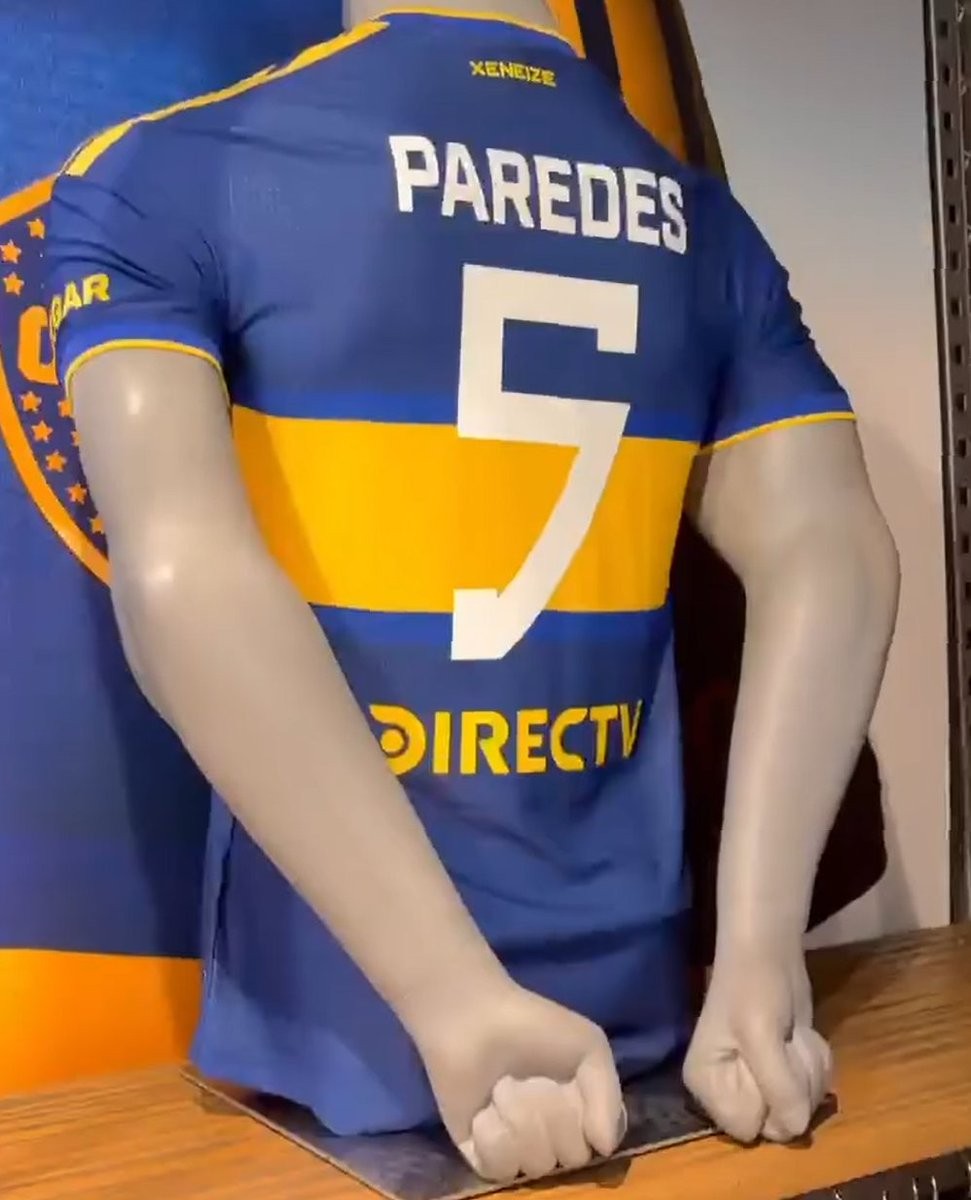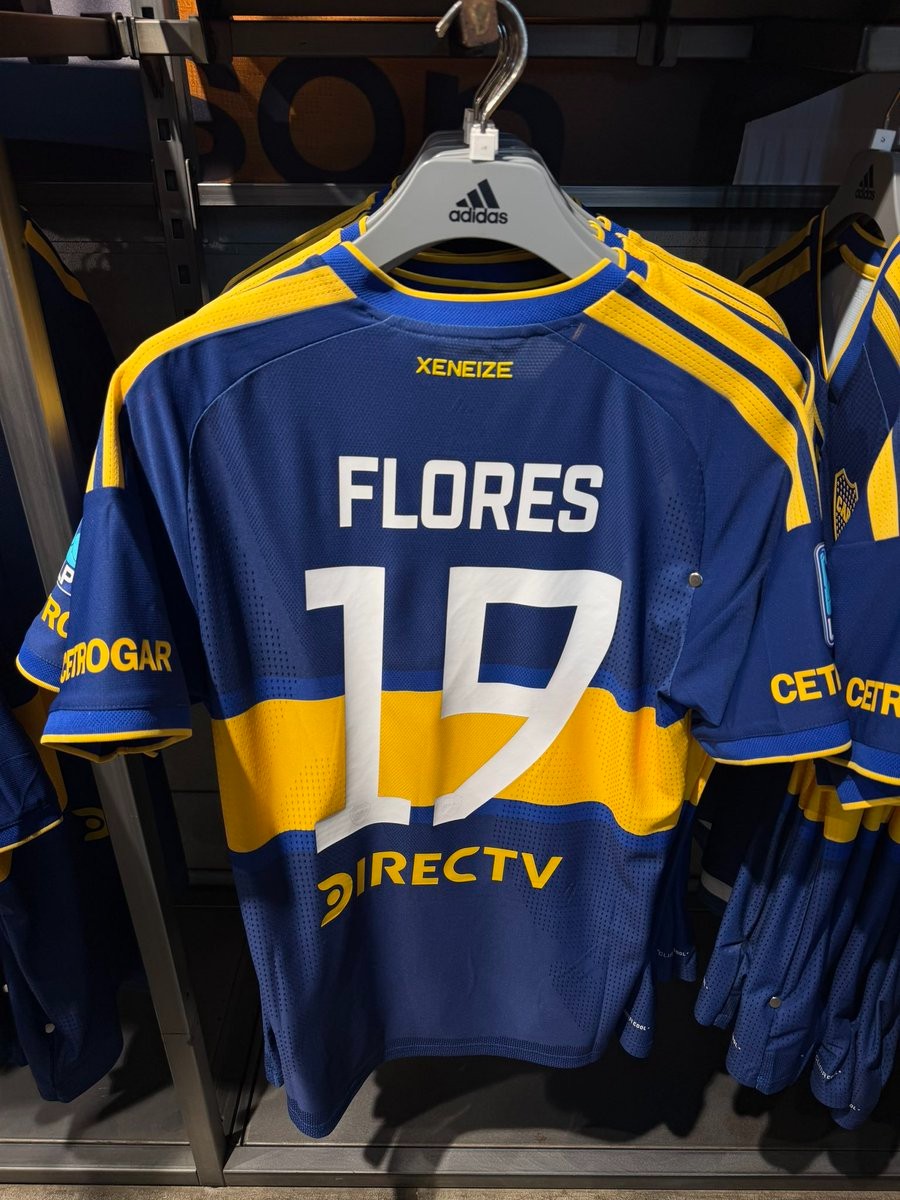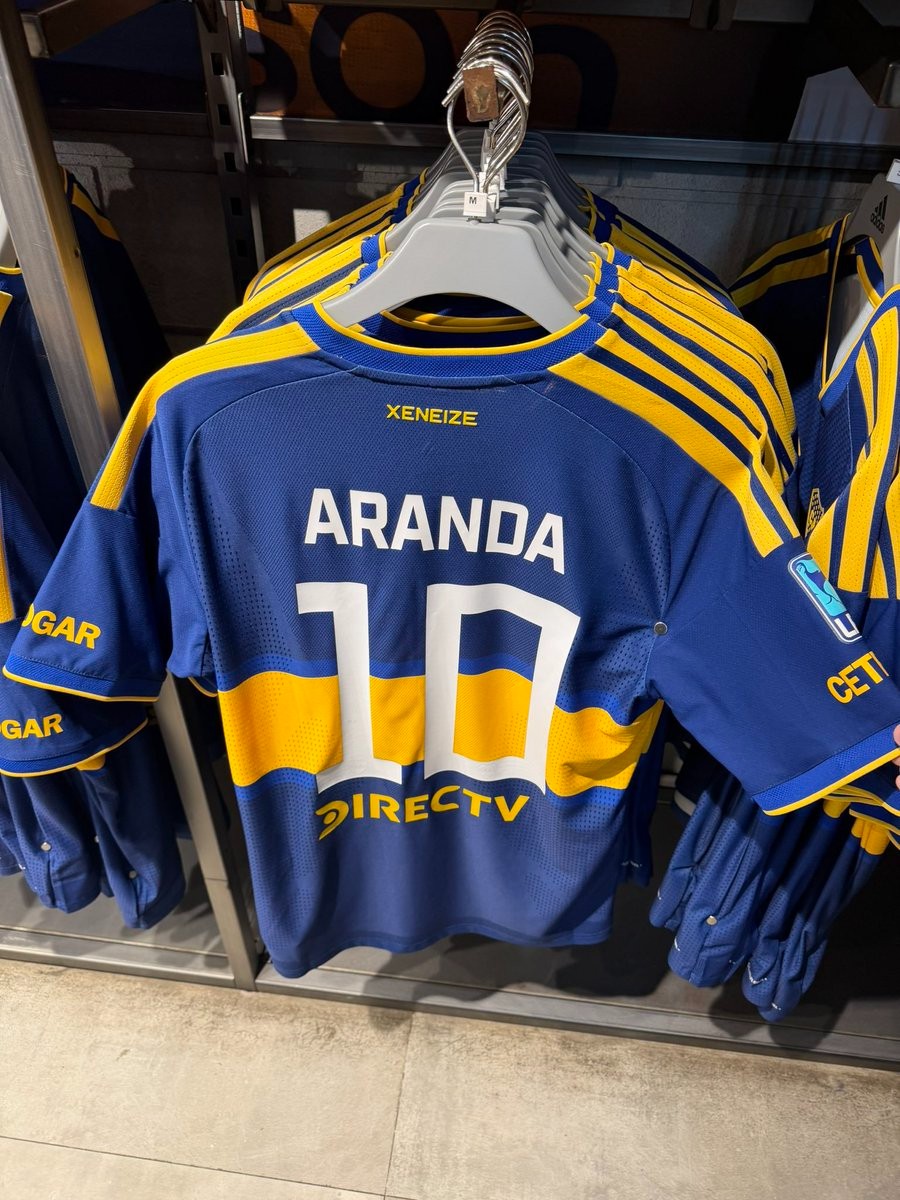
Boca Juniors 26-27 Kit Font Inspired by Historic 1932 Emblem
Boca Juniors has revealed the custom typography for player names and numbers on their 26-27 home kit. Designed in collaboration with Adidas, the new font draws direct inspiration from the club's historic 1932 emblem, bringing a classic geometric touch to the modern jersey.
The original 1932 shield featured distinctive angular lettering for the CABJ monogram inside the central yellow band. The new kit font replicates these sharp diagonal cuts and structured proportions across all letters and numbers.